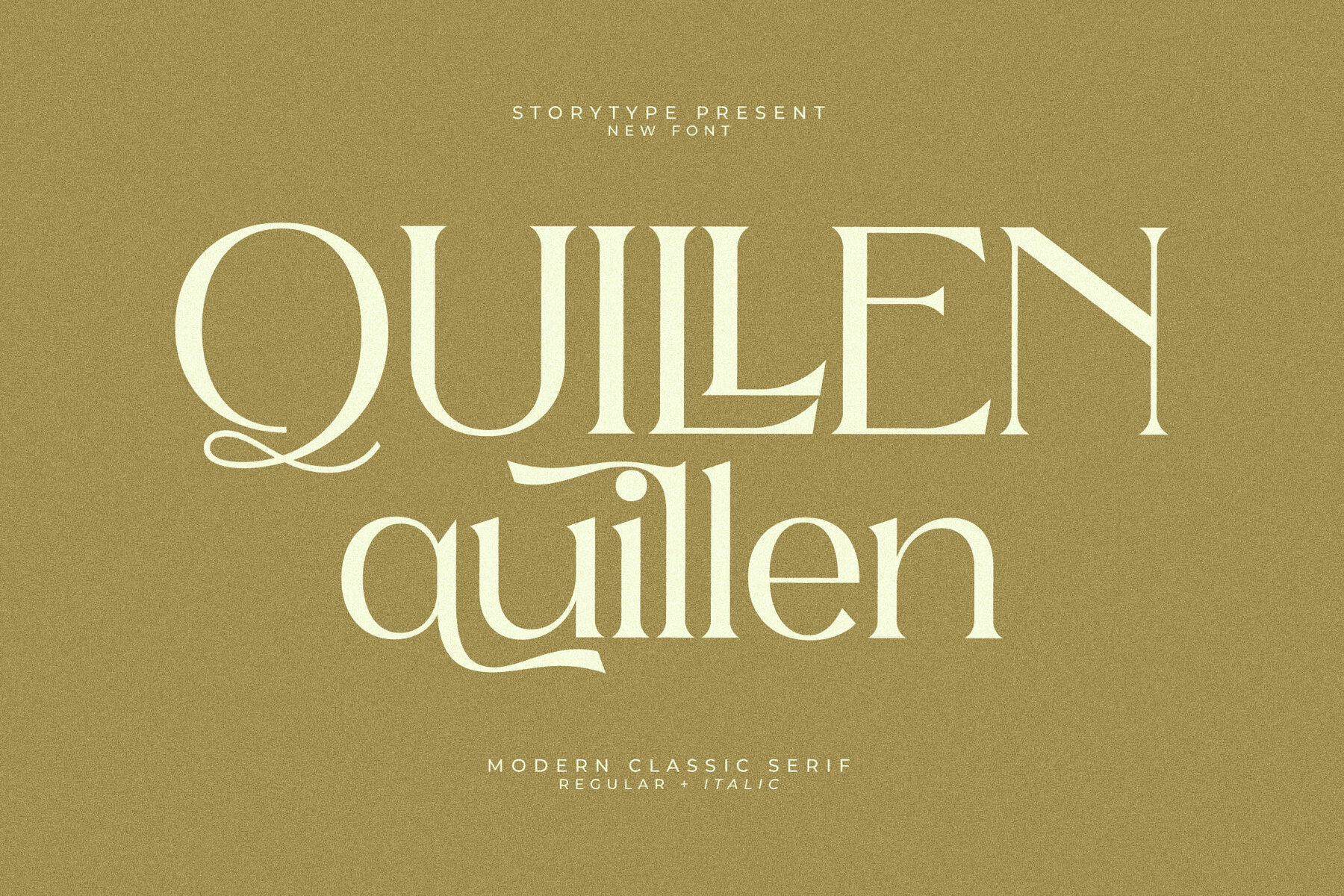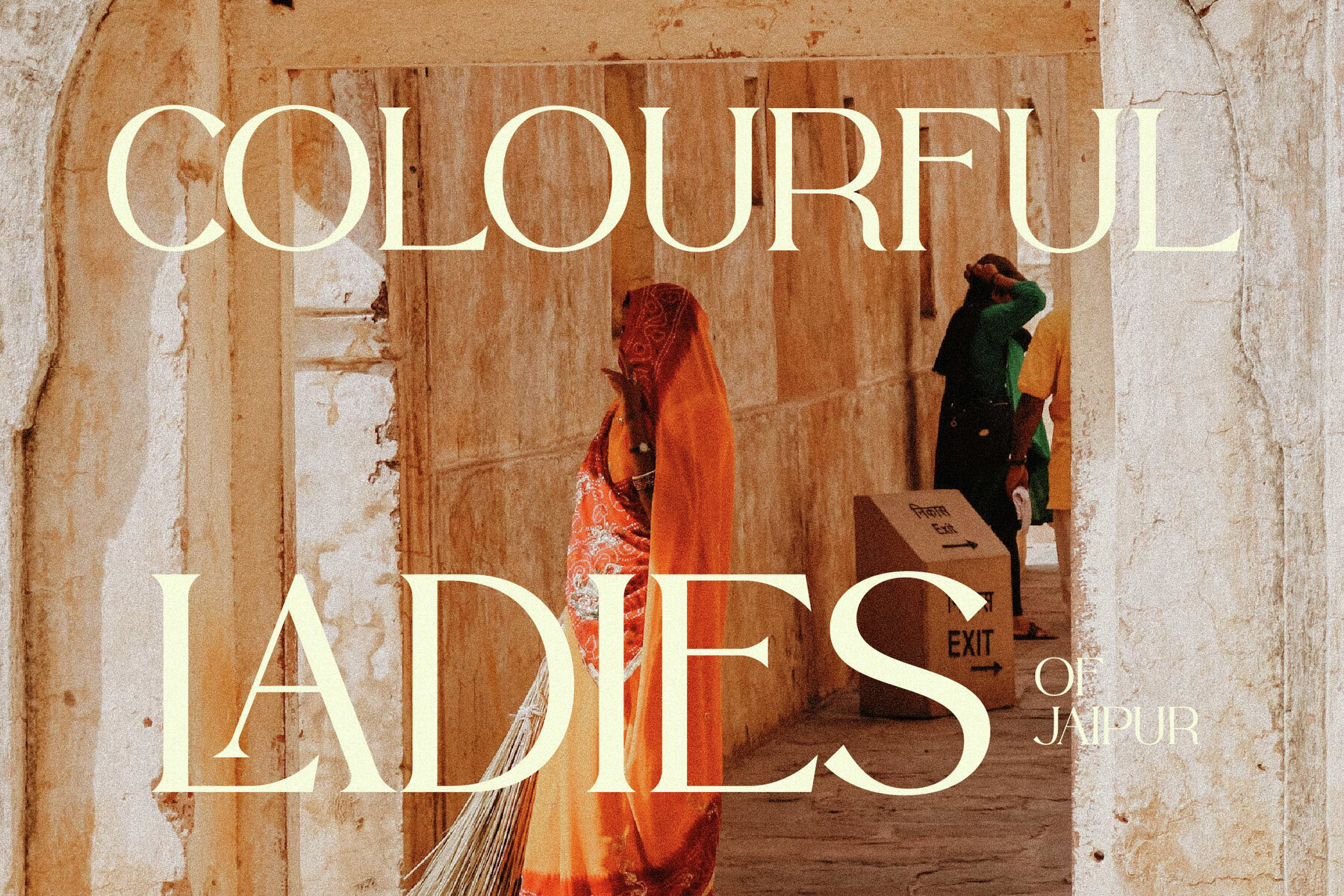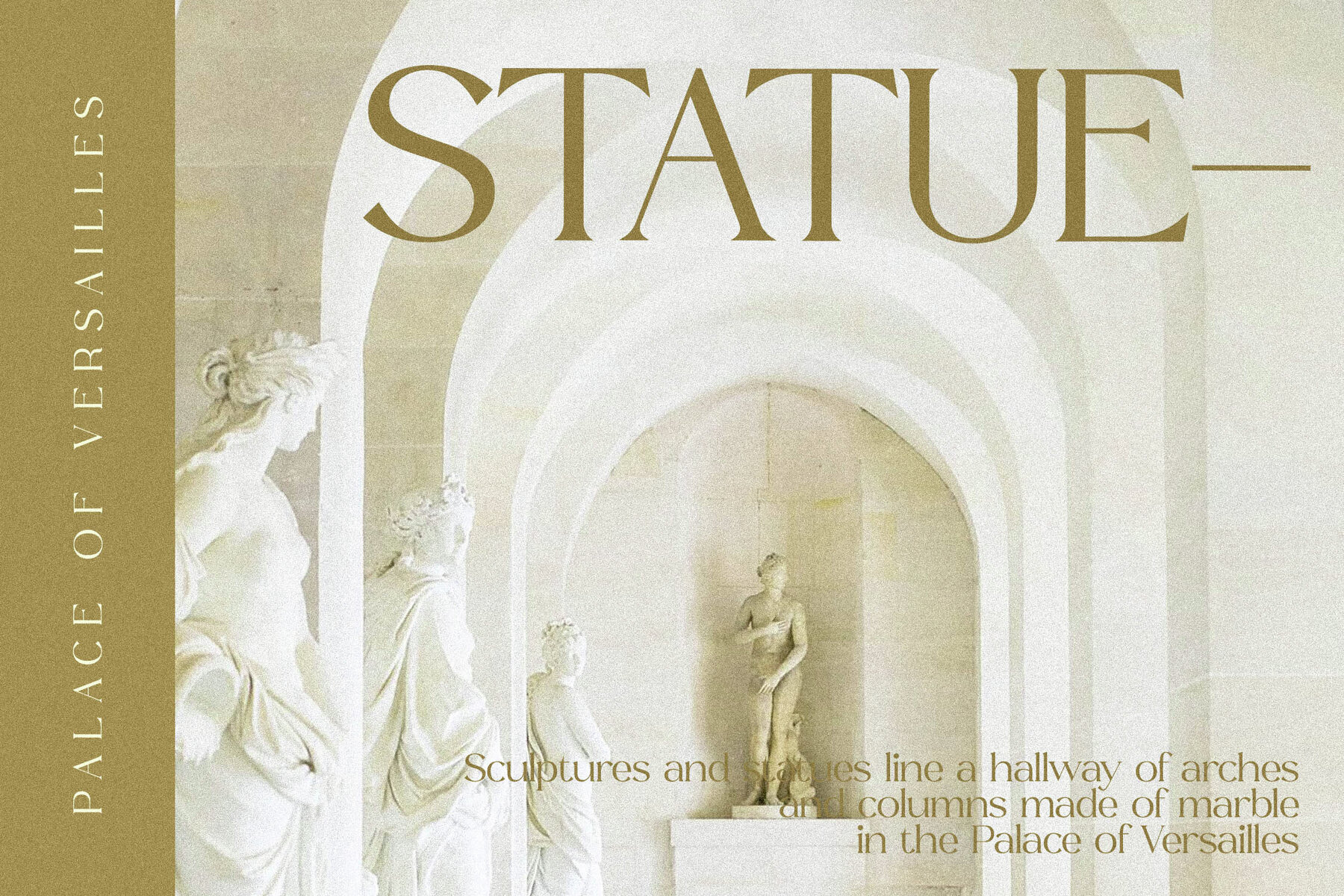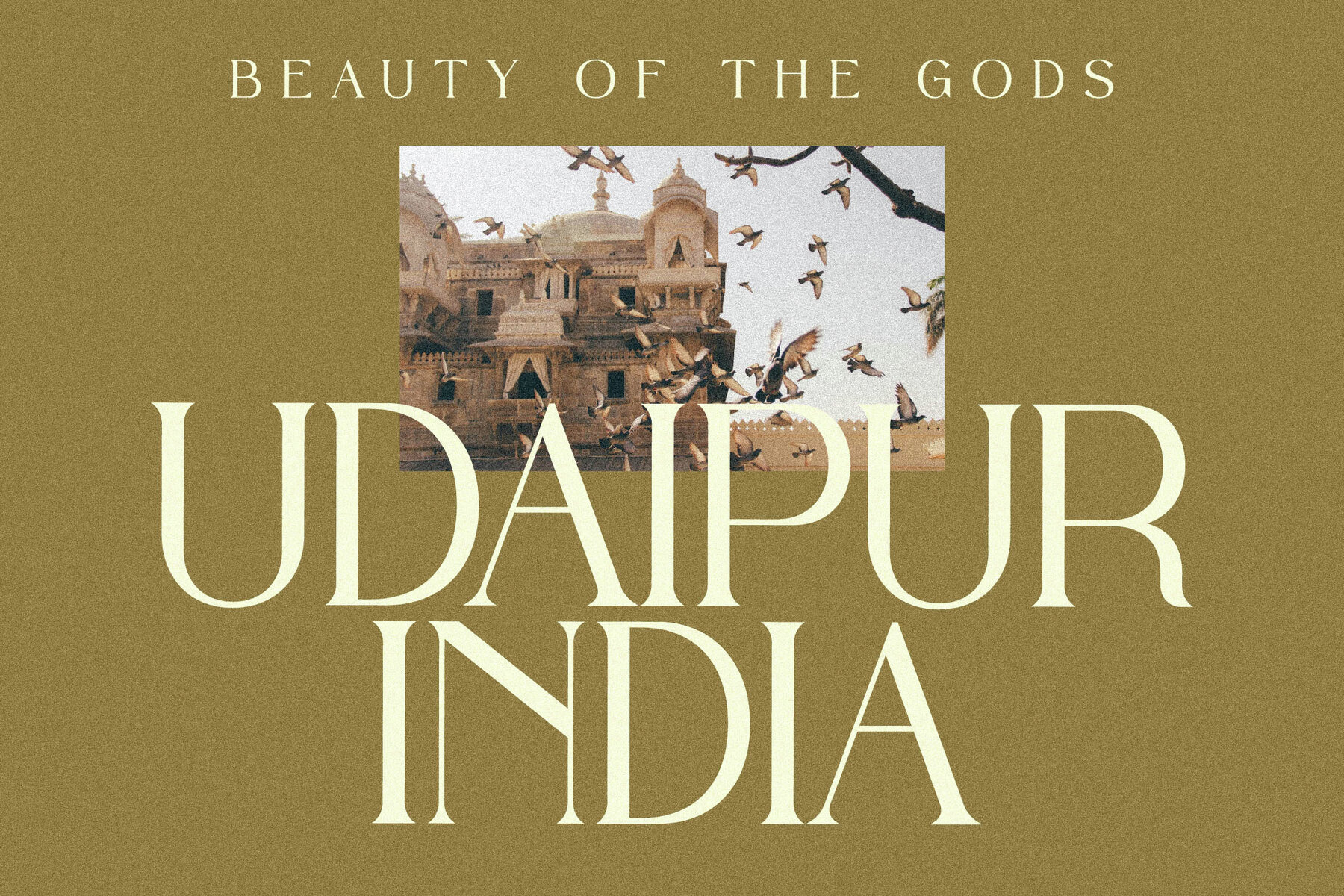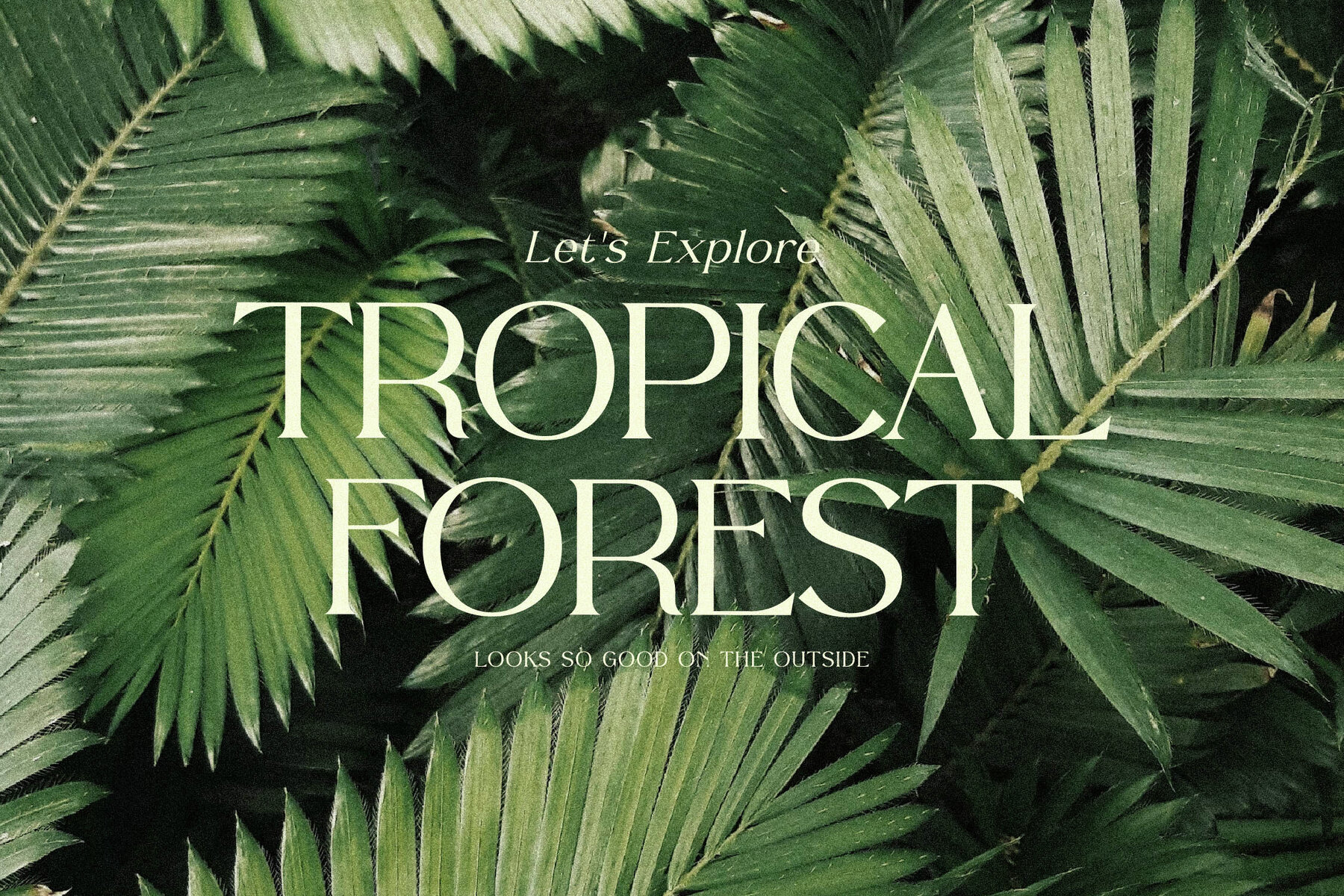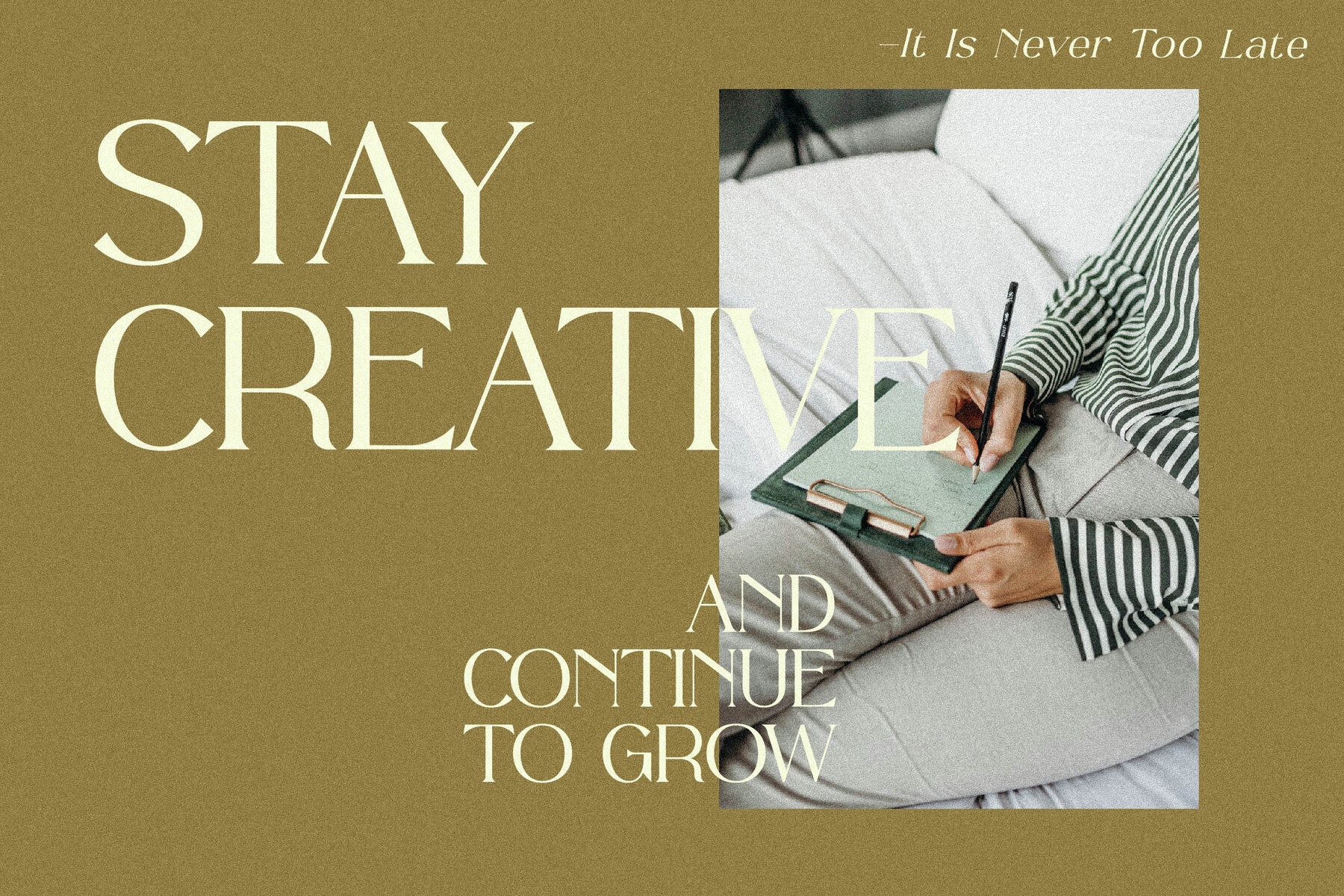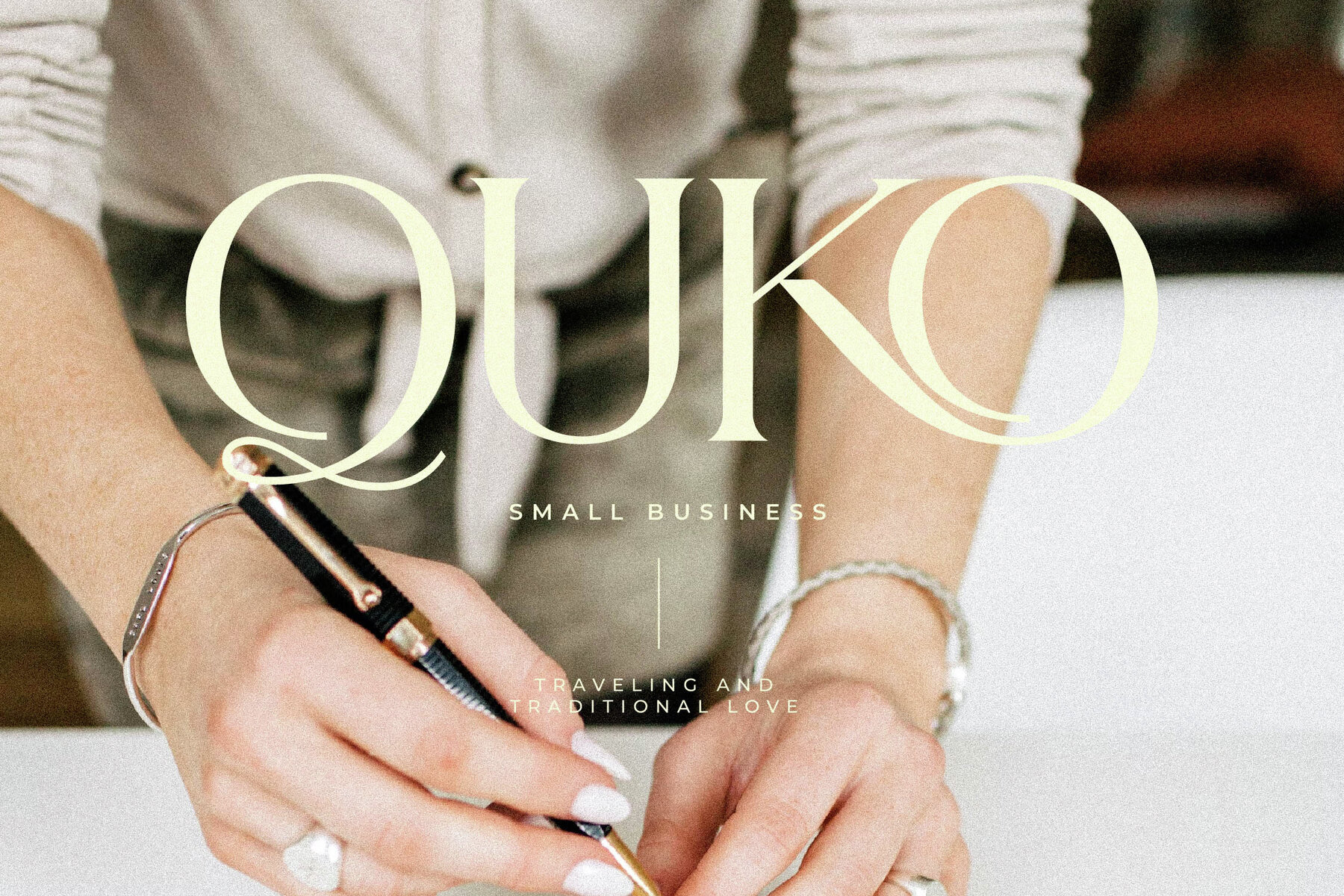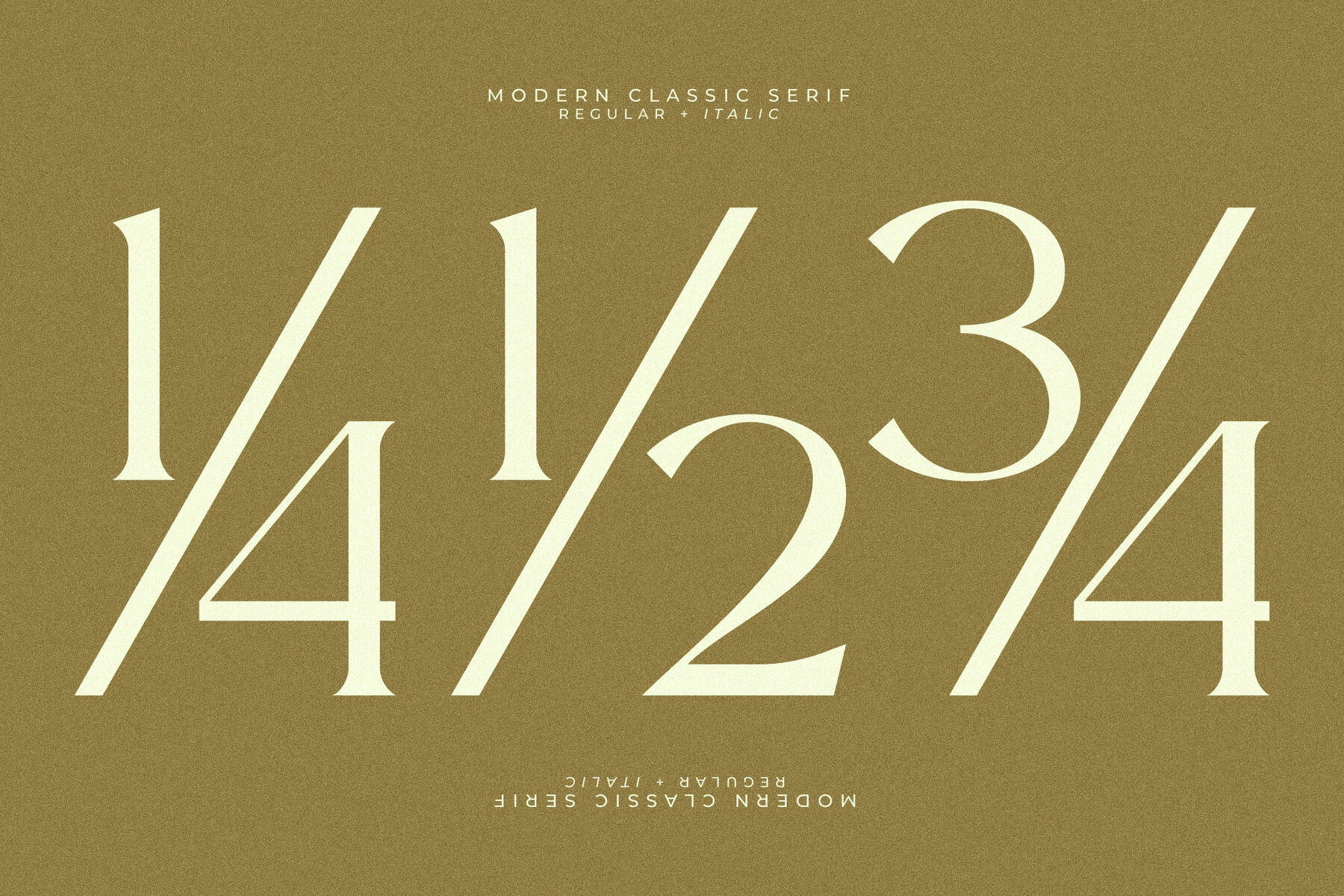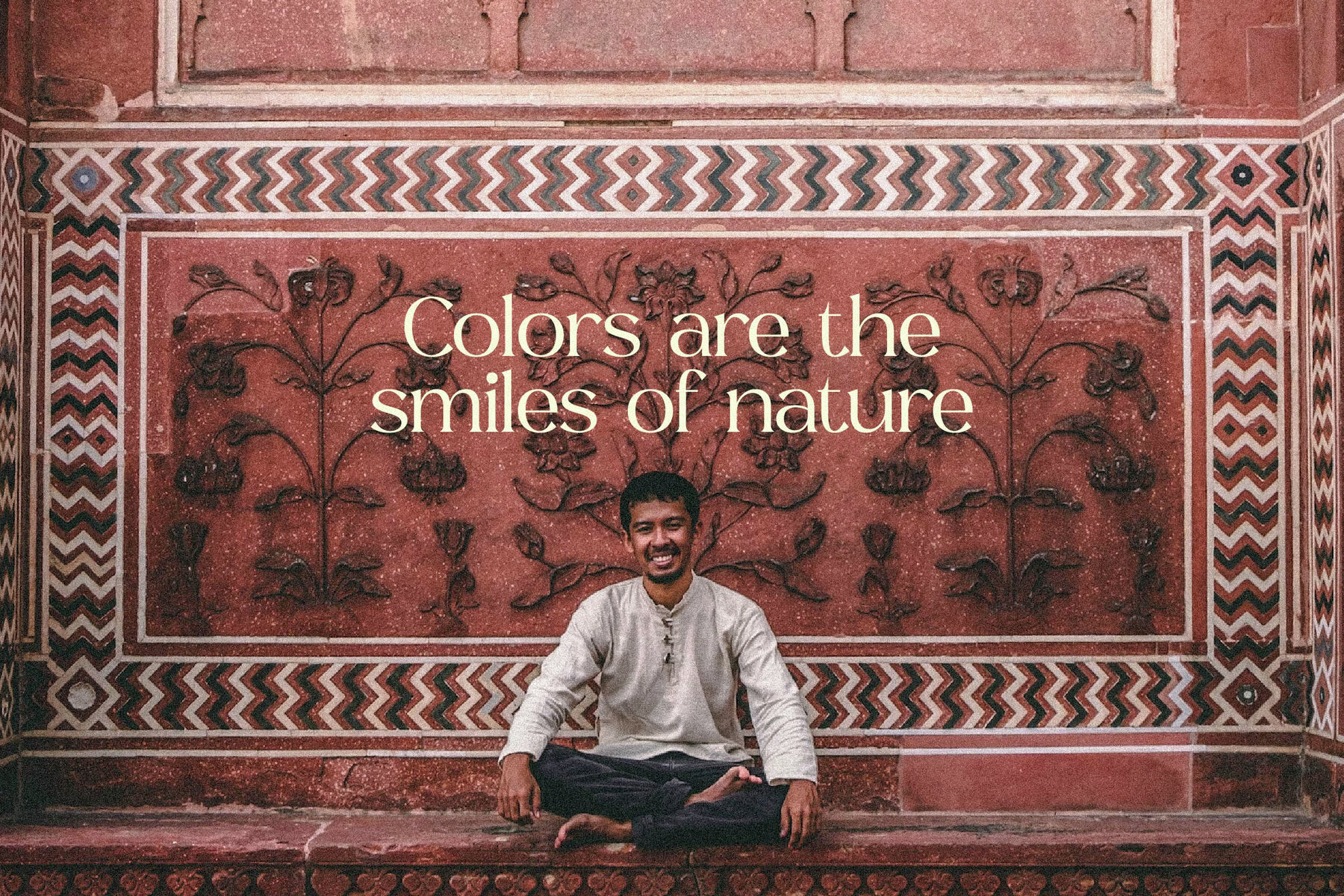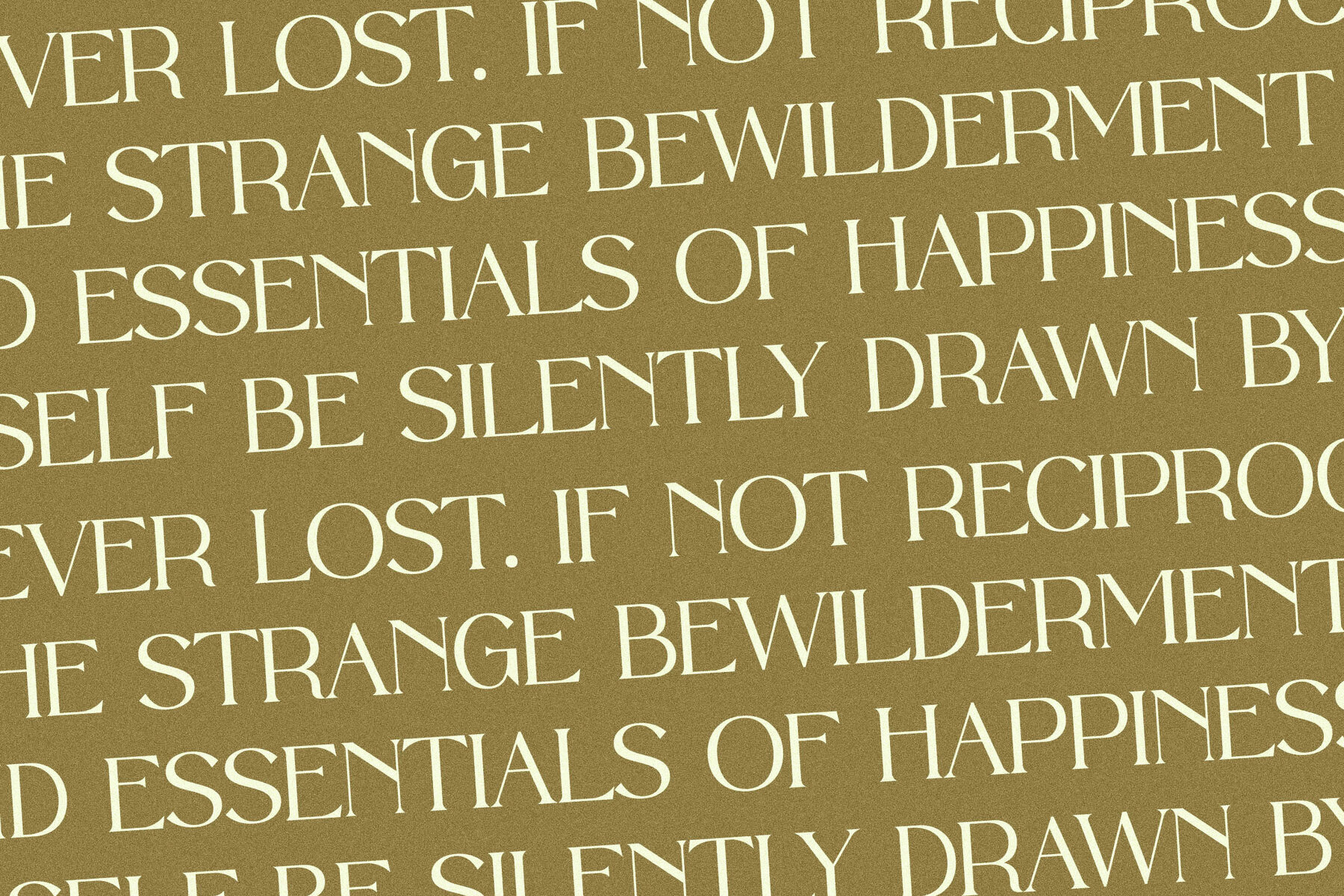
Quillen Font
Introducing the Quillen Typeface, a masterpiece from Storytype Studio. This distinctive serif font combines modern aesthetics with a classic flair, perfect for crafting elegant and luxurious designs. Whether you're designing a logo, a book or movie title, or branding for a high-end fashion line, Quillen provides the sophistication you seek. Elevate your design projects with a typeface that speaks to both style and functionality. Quillen stands ready to meet your creative needs, providing a seamless experience across various platforms and applications.Quillen Typeface: Modern Elegance in Serif Design